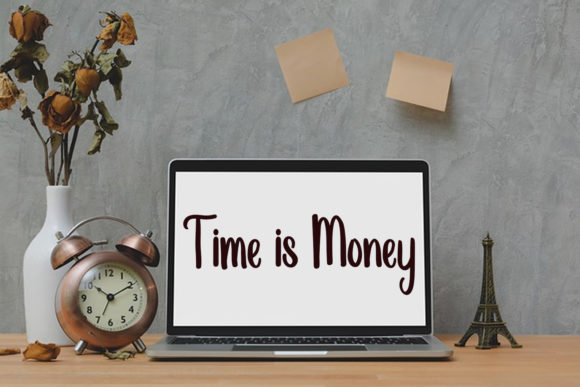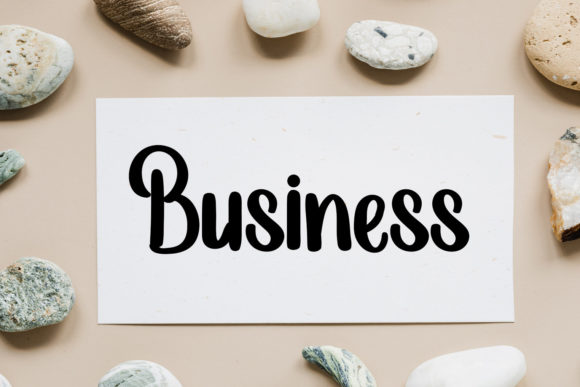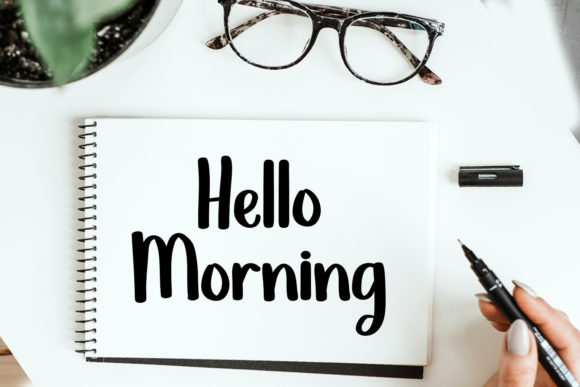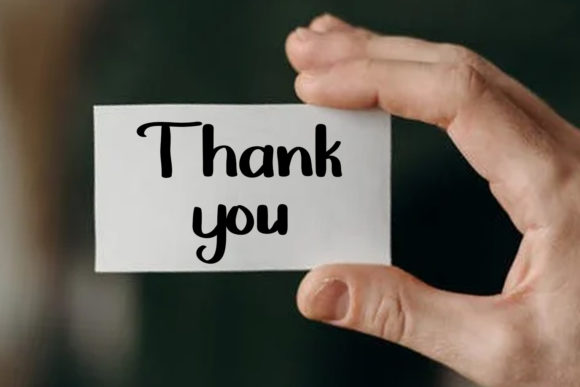
Introducing Family Font: The Perfect Addition to Your Design Projects
Are you a designer or crafter looking for a fresh and beautiful font to elevate your projects? Look no further than Family Font! This stunning font is ideal for a wide range of design purposes, from YouTube banners and cover logo mockups to wedding invitations, ID cards, flyers, and crafts. With Family Font, you can add a touch of elegance and sophistication to your designs, and we’re confident you’ll love the results.
What Makes Family Font So Special?
Family Font is a unique and versatile font that is sure to capture the attention of your audience. Its clean and modern design makes it perfect for a wide range of applications, from digital designs to print materials. The font is highly legible, even at small sizes, making it ideal for use on business cards, ID cards, and other small-scale designs.
Key Features of Family Font
• Fresh and Beautiful Design: Family Font boasts a modern and elegant design that is sure to impress.
• Highly Legible: The font is designed to be easy to read, even at small sizes.
• Versatile: Family Font can be used for a wide range of design purposes, from digital designs to print materials.
Family Font is a perfect addition to any designer’s or crafter’s toolkit. Whether you’re creating professional designs for clients or working on personal projects, this font is sure to inspire. Its versatility and legibility make it ideal for use on a wide range of projects, from:
• YouTube banners and cover logo mockups
• Wedding invitations and other event materials
• ID cards and business cards
• Flyers and brochures
• Crafts and DIY projects
Why Choose Family Font?
With so many fonts to choose from, why should you choose Family Font? Here are just a few reasons:
• Unique Design: Family Font boasts a unique and modern design that will set your projects apart.
• High-Quality: The font is designed to be high-quality and highly legible, making it perfect for professional designs.
Tips for Using Family Font
Here are a few tips for getting the most out of Family Font:
• Experiment with Different Sizes: Family Font is highly legible, even at small sizes. Experiment with different sizes to find the perfect fit for your project.
• Pair with Other Fonts: Family Font pairs well with other fonts. Try pairing it with a bold font for a striking contrast.
• Use on a Variety of Projects: Family Font is versatile and can be used on a wide range of projects. Don’t be afraid to try it out on different types of designs.
Family Font is a fresh and beautiful font that is perfect for designers and crafters looking to elevate their projects. With its modern design, high legibility, and versatility, it’s ideal for use on a wide range of applications. Whether you’re creating professional designs or working on personal projects, Family Font is sure to inspire. So why wait? Add Family Font to your toolkit today and see the difference it can make!